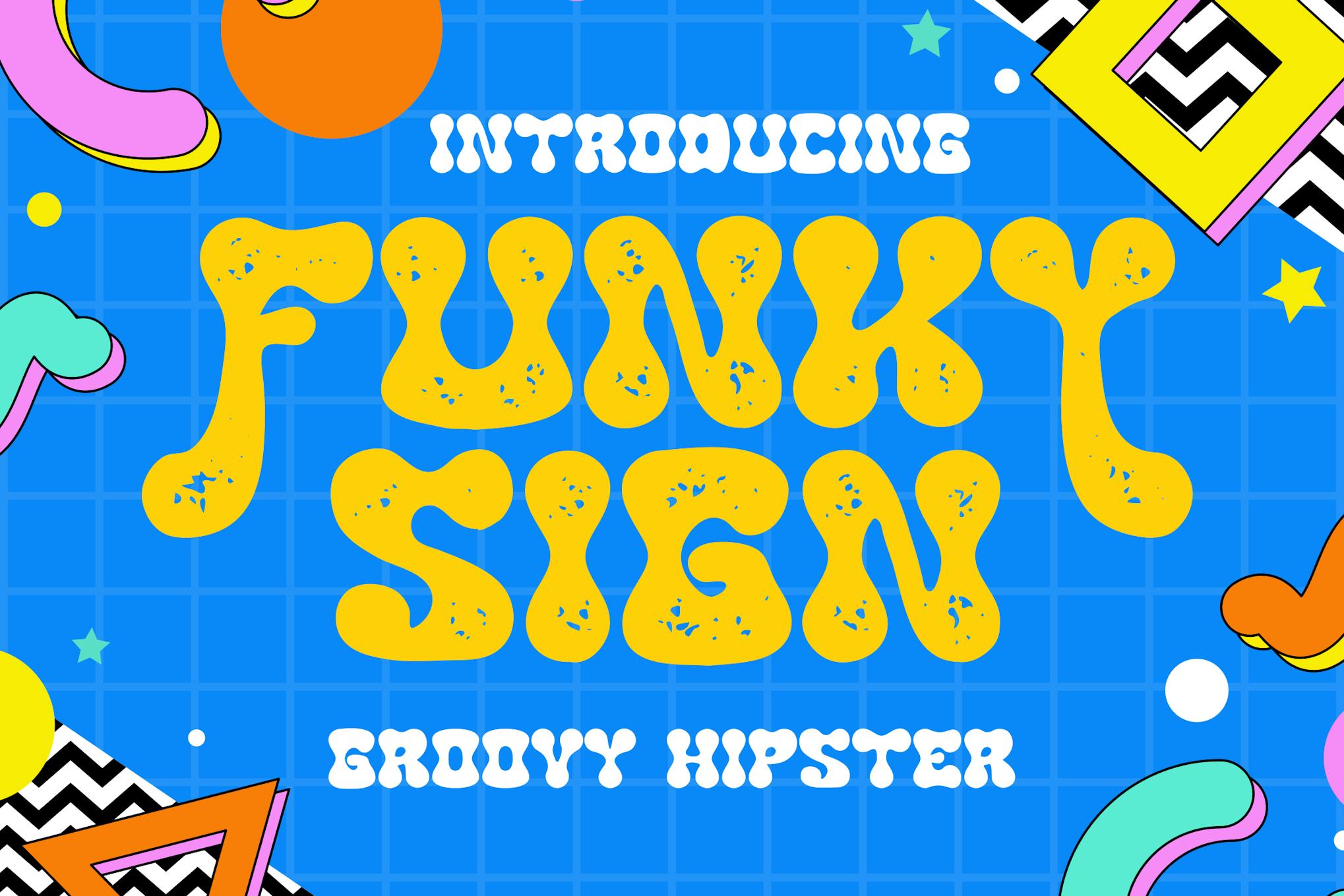
15+ Hipster Fonts That Don’t Conform
Step away from the mainstream and immerse yourself in the world of Hipster aesthetics with our one-of-a-kind compilation: 15+ Hipster Fonts That Don’t Conform. This post has been meticulously curated, keeping in mind the distinctive characteristic of every creative persona that doesn’t believe in following the status quo but creating their individualistic style.
This rich collection of hipster fonts, accessible both as paid and free resources, embodies the quintessential hipster spirit of uniqueness. Each font has a distinctive feature, personality and style that sets it apart from the rest, making it an extraordinary addition to any design or creative project.
In this post, expect the unexpected as we traverse the less-trodden path of hipster aesthetics and bring you a gamut of fonts that breathe novelty and originality. Delve deep into the spirit of indie creativity, and expertly use these fonts to give your work a fresh, exciting look that stands out in the crowd. Embrace the unique, take the leap, and let your designs do the talking!
Funky Sign Groovy Hipster Font
Introduce a retro vibe to your projects with the Funky Sign – Groovy Hipster Font. It’s an eye-catching asset, drenched in nostalgia and groovy charm that offers both clean and textured versions, practically offering a style for every mood. A perfect choice for logos, posters, landing pages or any music-themed project, this font adds a funky and unique touch to your designs.
Hipsterism Display Font
Hipsterism Display Font is a uniquely bold font with a standout personality, ideal for a range of design projects. The font includes opentype features like stylistic alternates, sets, and ligatures, making it perfect for logos, posters, book covers, t-shirts, and packaging. It contains a full character set, numerals, punctuations, accents, and multilingual characters.
Hipster Hatch Display Font
The Hipster Hatch Display Font is a spirited and vibrant typography asset designed for art projects aimed at children. Its quirky style and bold uppercase letters make a striking statement in headlines, logos and titles. This font also supports a radiant, full-color palette that adds charm and vibrancy to each letter. Ideal for various applications, from books and posters to websites, Hipster Hatch imbues designs with a fun and captivating quality sure to spark young imaginations. This creative asset also includes standard glyphs, a ligature set, and even a web font.
Mister Hipster Fun Handwritten Font
The Mister Hipster Fun Handwritten Font gives every project a thin, stylish look. Useful for many different content needs, it makes party invitations, quotes, packaging, and designs stand out. It’s also great for catchy headings, logos, menus, and social media graphics. With Uppercase, Lowercase, Symbols & Punctuation, Numerals, Alternate, and Multilingual Support, this font is quite versatile.
Street Hipster Graffiti Font
Explore your creative side with the Street Hipster Graffiti Font. This playful, graffiti-inspired font is perfect for crafting hip hop music posters, children’s books, cartoons, comics, and so much more. Supporting multilingual accents, uppercase and lowercase letters, numbers, punctuation, and PUA encoded, this open type font provides versatility and fun in any artistic project.
Hippie Mods Groovy Font
The Hippie Mods Groovy Font adds a vibrant touch of the psychedelic ’60s and ’70s to your projects. With its flowing curves, retro details, and hand-drawn feel, this typeface is a fun, nostalgic nod to the era of peace and love. Its versatility makes it perfect for creative work, from art and posters to branding, truly embodying the free-spirited countercultural revolution.
Artzopo Font
The Artzopo Font, a handmade asset presented with open type features, makes a striking choice for various design projects. Its versatility makes it perfect to enhance logos, quotes, t-shirts, posters, and more. The font includes uppercase, lowercase, numerals, and punctuations, giving you a comprehensive tool for creative expression.
Rambors Retro Font
Introducing the innovative Rambors Retro Font, a 70s inspired multiline display font that blends futuristic and fun elements. Emanating nostalgia, it adds character to modern and contemporary designs. Ideal for catchy headlines in posters, flyers, or stickers, this all-caps font offers varying uppercase and lowercase designs, making it versatile for different design explorations. This font also features alternate characters for added creative flexibility.
Rikoma – Groovy Retro Font
The Rikoma Groovy Retro Font is a contemporary and eclectic asset with a blend of bohemian style, perfect for branding or logo design. It offers a variety of alternates, ligatures and multilingual support for extensive usability. This pack includes .otf, .woff files, and a helpful guide for easy installation and integration. You can access all characters in Adobe Illustrator Glyphs Panel and Adobe Photoshop Character Open Type Panel.
Total Blast Font Family
Meet the Total Blast Font Family, a striking display font engineered to elevate your projects. Its broad spectrum of styles from Extra Light to Black fuels unlimited creativity, suitably tailored for posters, logos, or branding materials. Make a powerful statement with Total Blast, further fine-tuned through variable font options to cater to your specific design requirements. Dive into this dynamic font family to infuse your designs with vitality and style.